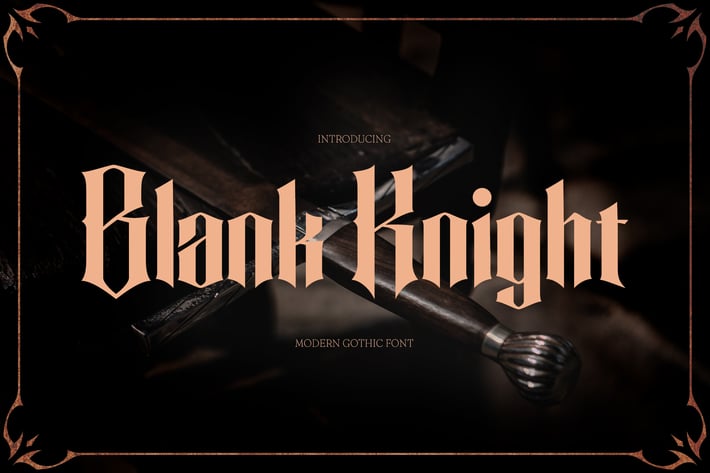
Blank Knight – Modern Gothic Typeface
Blank Night – is a modern gothic font with a bold, semi-condensed design. This font combines elegance and assertiveness, making it perfect for headlines, logos, branding, posters, and editorial layouts.
Elevate your designs with “Blank Knight” and make a bold statement with its unique style!